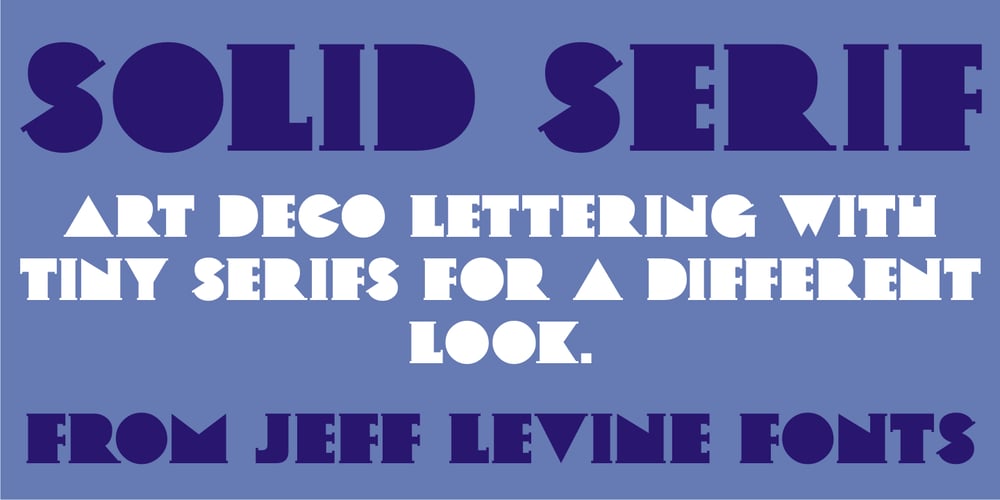
Solid Serif JNL Font Family was designed by Jeff Levine and published by Jeff Levine. Solid Serif JNL contains 1 styles and family package options. Solid Serif JNL adds tiny serifs to the letter forms of Parkitecture JNL and changes the look and feel into an Art Deco Roman face for display, titling and period pieces.